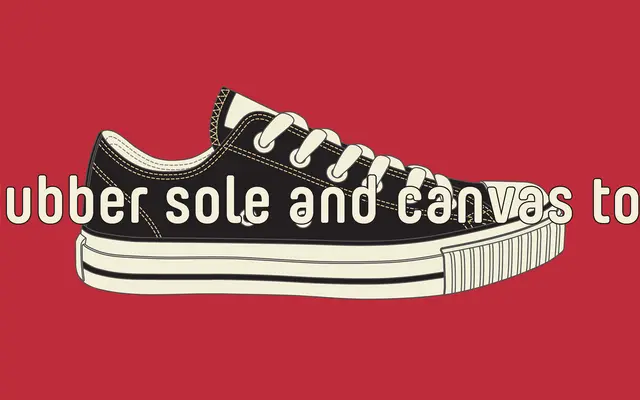
Yummo specimen from Dharma Type
A five-weight geometric rounded sans with slightly condensed proportions and soft rounded contours aimed at modern, friendly applications.
Geometric in structure but softened by rounded terminals, Yummo sits between the precision of a strict geometric sans and the warmth of a more humanist approach. The slightly condensed proportions lend it efficiency on the page without sacrificing openness, and the minimal glyph forms keep it feeling contemporary. Five weights with diacritic support for most European languages make it a practical choice for interface, branding and editorial work.
Described explicitly as geometric sans-serif with rounded contours and a slightly condensed proportion; the rounded terminals and minimal glyphs place it firmly in the geometric rounded subcategory.